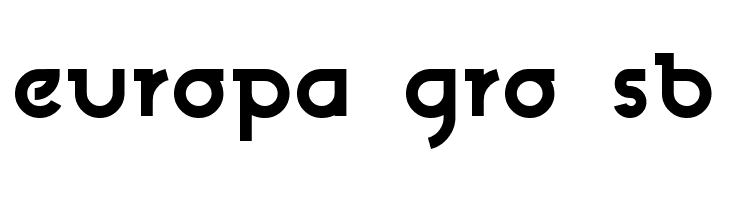
A bold, dynamic script font with a handwritten style.
A bold, Art Deco-inspired font with high contrast and elegant, narrow forms.
A bold, brush-like font with a dramatic and artistic style.
A sleek, modern italic font with clean lines and smooth curves.
A classic serif font with elegant curves and sharp edges, perfect for a timeless look.
A dynamic italic font with bold, slanted characters and a modern flair.
A bold, italicized font with angular, geometric characters and a dynamic style.
A bold, playful font with exaggerated curves and a whimsical style.
A bold, decorative serif font with dramatic curves and intricate details.
A bold, modern font with clean lines and a geometric structure.
An elegant serif font with classic, sophisticated styling.
A bold, modern font with a slightly condensed style and elegant design.
An elegant, modern font with thin, elongated strokes and a dynamic slant.
A bold, geometric font with angular, blocky letterforms and a modern aesthetic.
A bold, italic font with dynamic slanted characters and a modern-retro style.
A bold, angular font with a gothic, medieval influence.
A bold, medieval-inspired serif font with sharp, angular serifs and dramatic flair.
A sleek, italicized font with smooth curves and a modern aesthetic.
A modern, rounded font with a clean and approachable design.
A bold slab serif font with strong, block-like serifs and a modern touch.